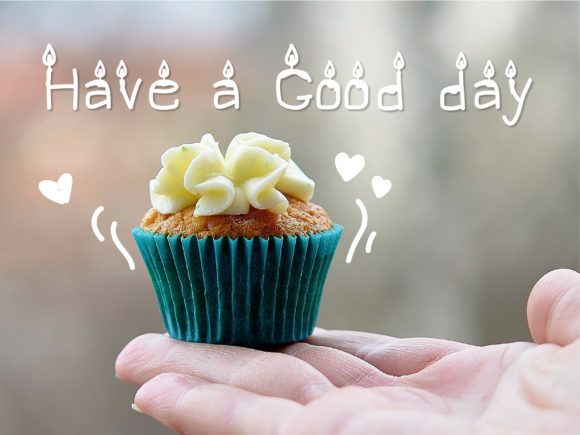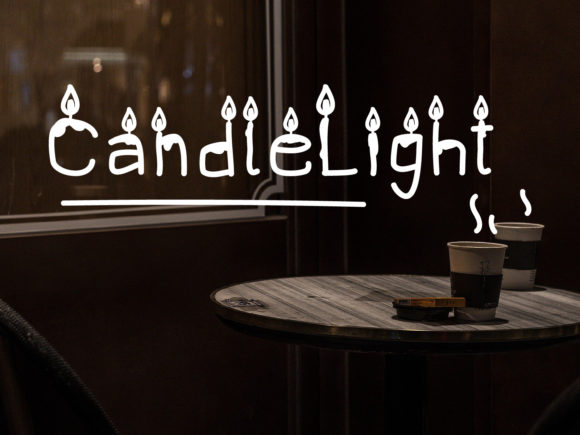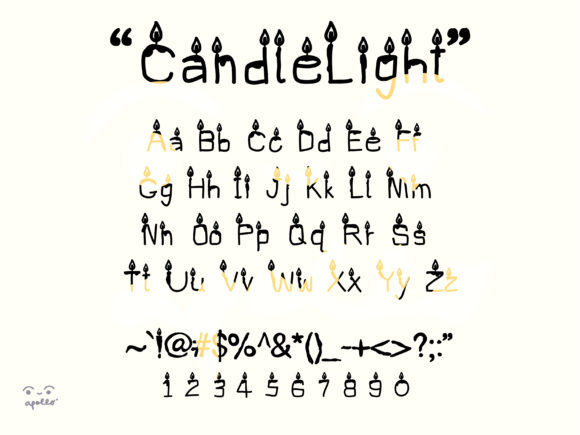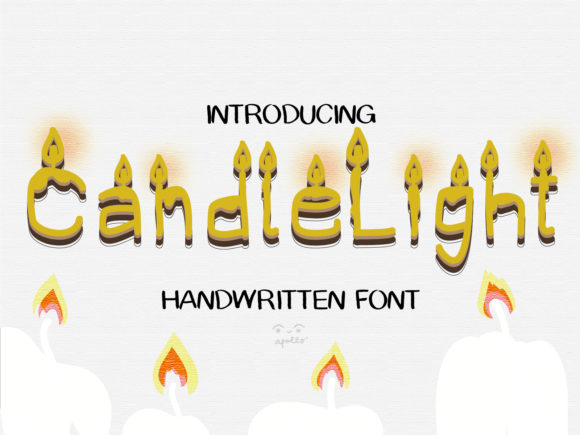
Candlelight Font: Add a Warm and Cozy Touch to Your Designs
Are you looking for a unique and decorative font to add a personal touch to your designs? Look no further than the Candlelight Font. This beautiful font features candle-shaped letters that will add a fantastic feel to your creations. Whether you’re a designer, crafter, or simply someone who loves to create, the Candlelight Font is perfect for anyone who wants to add a warm and cozy touch to their work.
What is Candlelight Font?
Candlelight Font is a decorative font that features letters shaped like candles. The font is designed to resemble the soft, warm glow of candlelight, making it perfect for creating designs that require a cozy and inviting atmosphere. The font is highly versatile and can be used on a variety of projects, from birthday cards and invitations to craft projects and DIY designs.
Uses for Candlelight Font
The Candlelight Font is perfect for a wide range of design projects. Here are a few ideas to get you started:
- Birthday Cards: Create a unique and personalized birthday card for your friends and family using the Candlelight Font. You can add the recipient’s name and a special message to make it extra special.
- Craft Projects: Add a touch of warmth and coziness to your craft projects, such as scrapbooking, journaling, and card making, with the Candlelight Font.
- Invitations: Use the Candlelight Font to create beautiful and inviting invitations for parties, weddings, and other special events.
- DIY Designs: Add a personal touch to your DIY designs, such as signs, banners, and wall art, with the Candlelight Font.
Benefits of Using Candlelight Font
There are many benefits to using the Candlelight Font in your designs. Here are a few:
- Unique and Eye-Catching: The Candlelight Font is a unique and eye-catching font that will add a touch of personality to your designs.
- Highly Versatile: The Candlelight Font can be used on a wide range of projects, from digital designs to print projects.
Tips for Using Candlelight Font
Here are a few tips for using the Candlelight Font in your designs:
- Use it Sparingly: While the Candlelight Font is beautiful, it can be overwhelming if used too much. Use it sparingly to add a touch of elegance to your designs.
- Pair it with Other Fonts: Pair the Candlelight Font with other fonts to create a unique and interesting design.
The Candlelight Font is a beautiful and versatile font that is perfect for designers, crafters, and anyone who wants to add a touch of warmth and coziness to their designs. With its unique candle-shaped letters and highly versatile design, the Candlelight Font is sure to become a favorite in your design toolkit. So why wait? Download the Candlelight Font today and start creating beautiful and inviting designs that will leave a lasting impression.